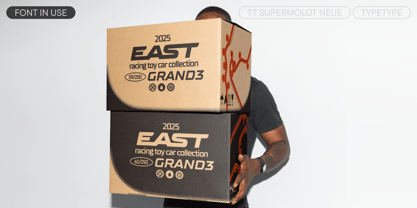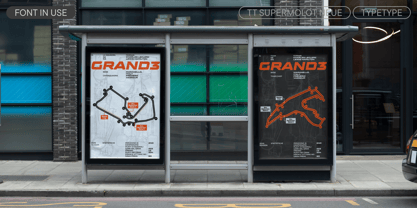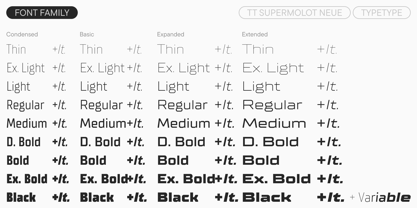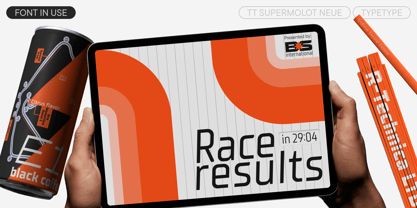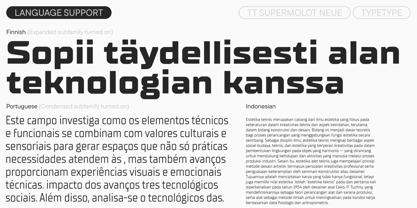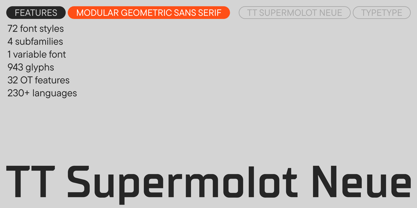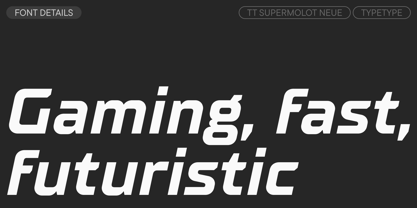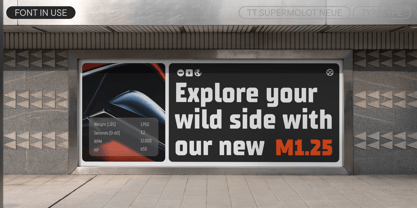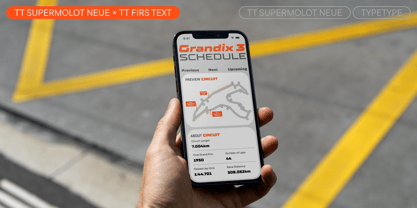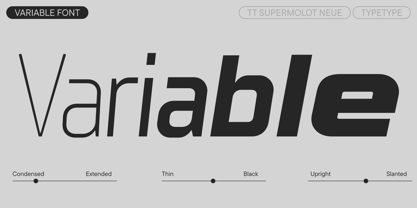
TT Supermolot Neue
La familia tipográfica TT Supermolot Neue fue diseñada por Ivan Gladkikh, Marina Khodak, TypeType Team y publicada por TypeType. TT Supermolot Neue contiene 91 estilos y opciones de paquete familiar.
Meet TT Supermolot Neue version 3.000! We have added a new subfamily and increased the range of variability. TT Supermolot Neue is an advanced modular sans serif with a futuristic mood. It is a powerful and dynamic font: its "squared" shapes give it a sense of brutality, while cut corners in specific elements make it plastic and ergonomic. The font features many interesting details: beautiful junctions, distinctive "steps," and corners in the squared ovals. TT Supermolot Neue manifests differently across various styles: in the Light font style, it is calmer and softer, while in Bold, it acquires seriousness and solidity. In the updated version, we added a new Compressed subfamily with narrow proportions. Additionally, we updated the variable font, uniting the entire range of widths into a single system. TT Supermolot Neue reveals itself best in medium and large sizes, though it maintains good legibility in small point sizes as well. This typeface was created specifically for videogame interfaces. However, its sphere of application is much wider. The font will fit equally well into projects related to technology, the automotive industry, architecture, and design. It can also become part of a street art museum’s identity or a sportswear brand—it all depends on your imagination. TT Supermolot Neue 3.000 includes: - 91 styles: 45 uprights, 45 italics, and 1 variable font - 941 glyphs per style - 32 OpenType features, including stylistic alternates for certain characters - Support for over 230 languages